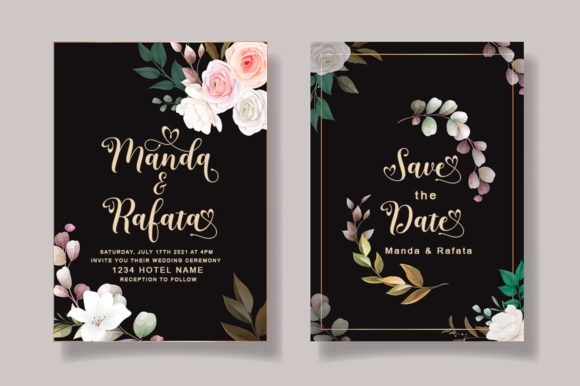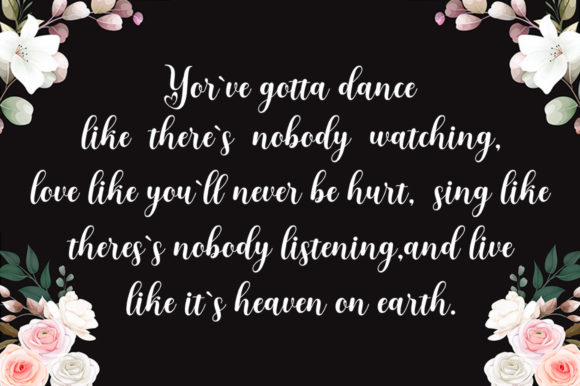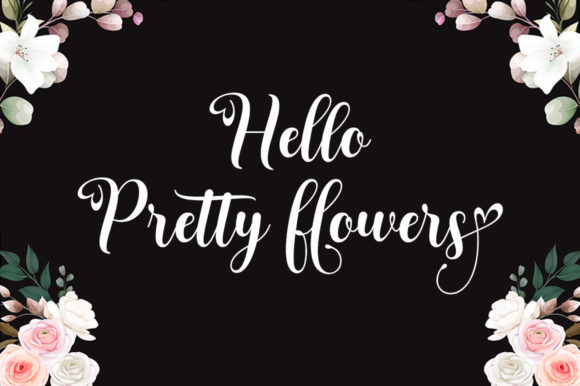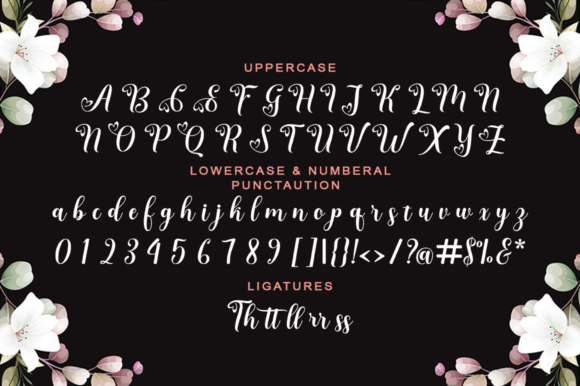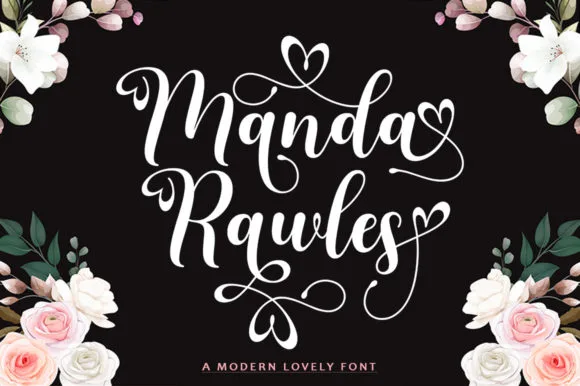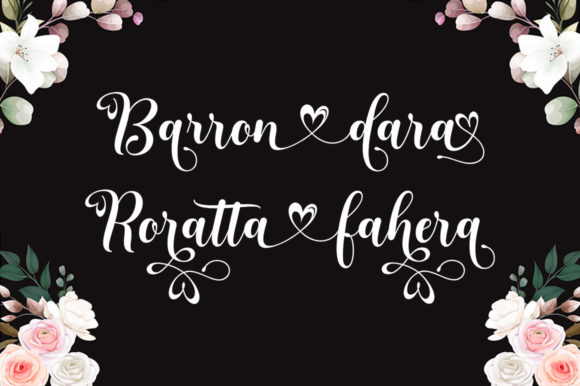
Manda Rawles Font
Manda Rawles is a dazzling script font that brings a touch of elegance and charm to your designs. With its beautiful and flowing letterforms, this font is versatile and can enhance a wide range of creative projects.
The stylish and sophisticated nature of Manda Rawles makes it a valuable addition to your font library. Whether you’re designing a logo, branding materials, invitations, or any other project, this font has the potential to elevate your design and make it more captivating.
Manda Rawles is PUA encoded, which means you have easy access to all of its glyphs and swashes. This allows you to customize and embellish your text, adding unique and decorative elements to your designs. With a wide range of alternate characters and ligatures available, you can create beautiful and personalized lettering compositions.
The flowing and graceful strokes of Manda Rawles give it a sense of elegance and sophistication. Its smooth curves and stylish connections between letters create a harmonious and pleasing visual flow. This makes Manda Rawles ideal for creating headlines, titles, or any text that requires a touch of refinement.
The versatility of Manda Rawles allows it to adapt to different design styles and themes. Whether you’re going for a vintage-inspired look, a modern and sleek aesthetic, or something in between, this font can complement your vision. It can add a touch of sophistication to wedding invitations, a sense of luxury to branding materials, or a playful elegance to social media graphics.
When working with Manda Rawles, consider pairing it with complementary typefaces to create visually balanced typography. Experiment with different weights, styles, and sizes to achieve the desired effect. Manda Rawles can be the focal point of your design or work harmoniously with other fonts to create a cohesive and visually appealing composition.
In conclusion, Manda Rawles is a dazzling script font that adds elegance and charm to your designs. Its versatility, along with its PUA encoding, allows for endless creative possibilities. Embrace the beauty and potential of Manda Rawles to enhance your creations and captivate your audience.